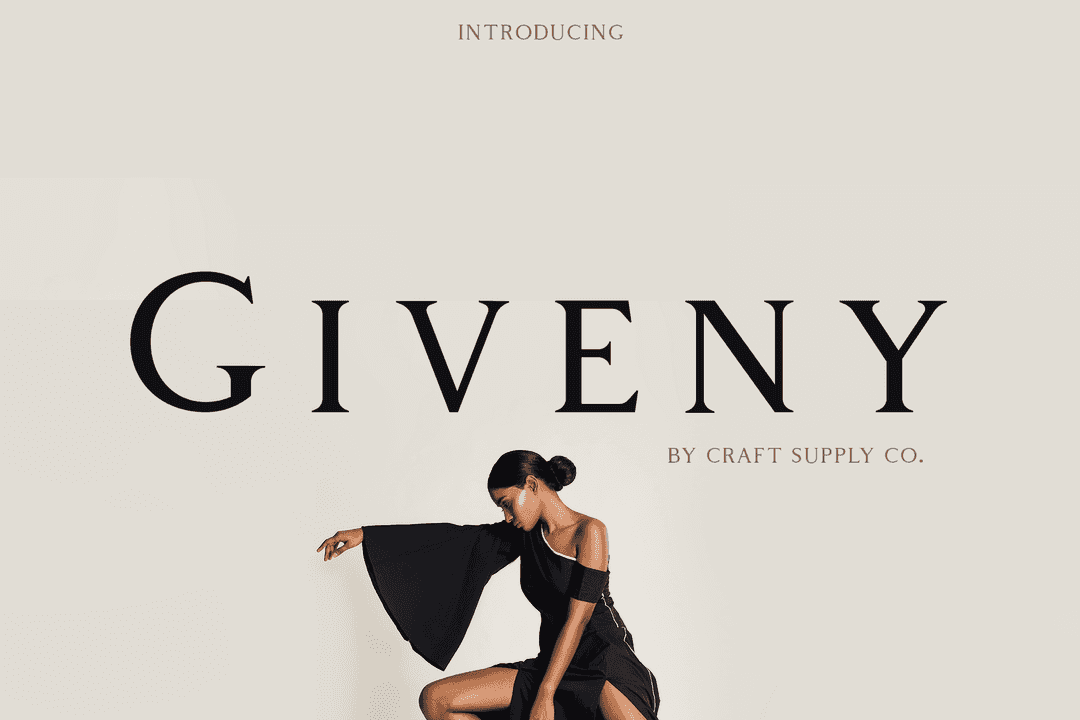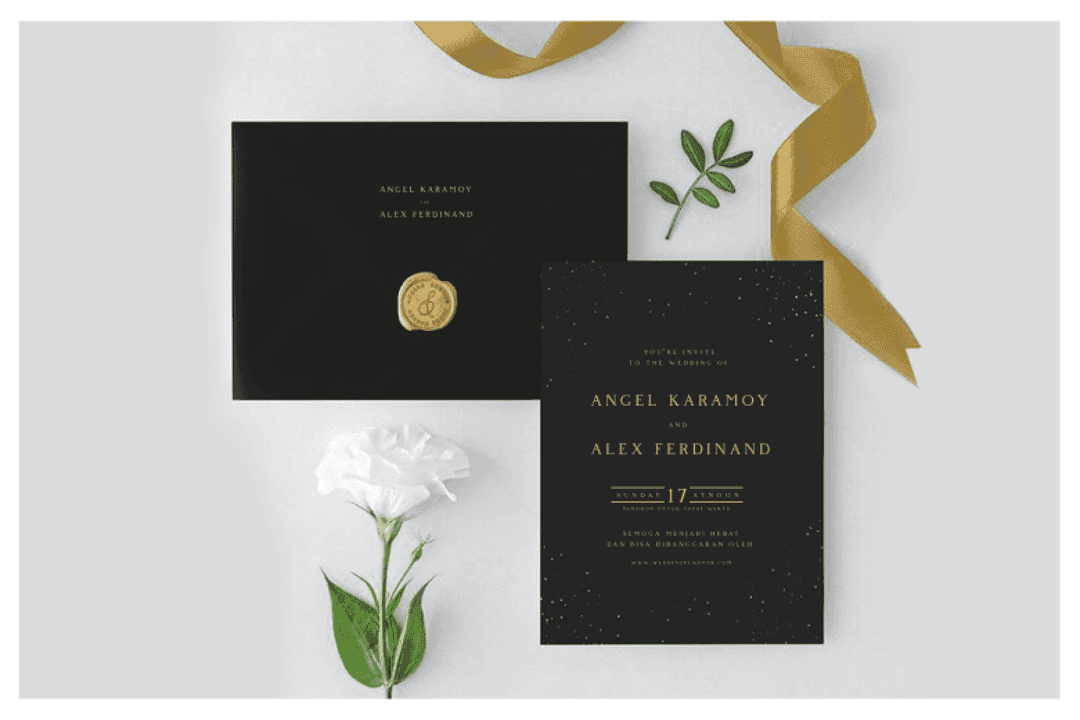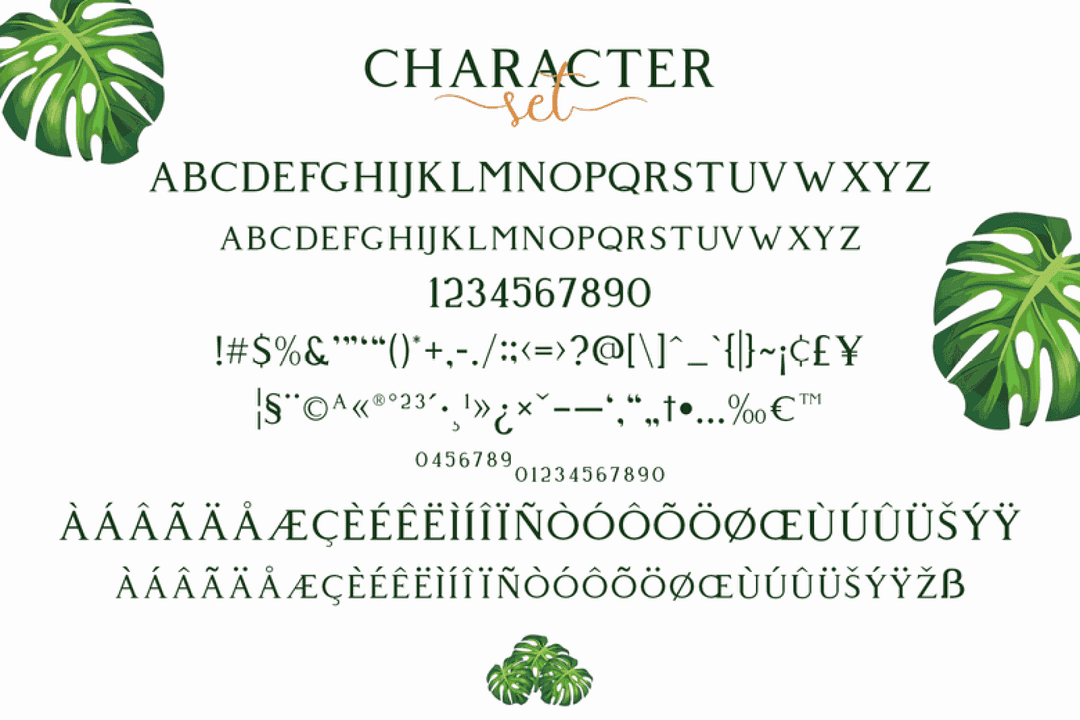
Giveny – Classy Serif Font is a Classy serif font and its design relates us to the transitional serifs. The peculiarities of the given font are the intermediate sharpness of strokes, the slightly rectangular forms of circles, and the commercial orientation.